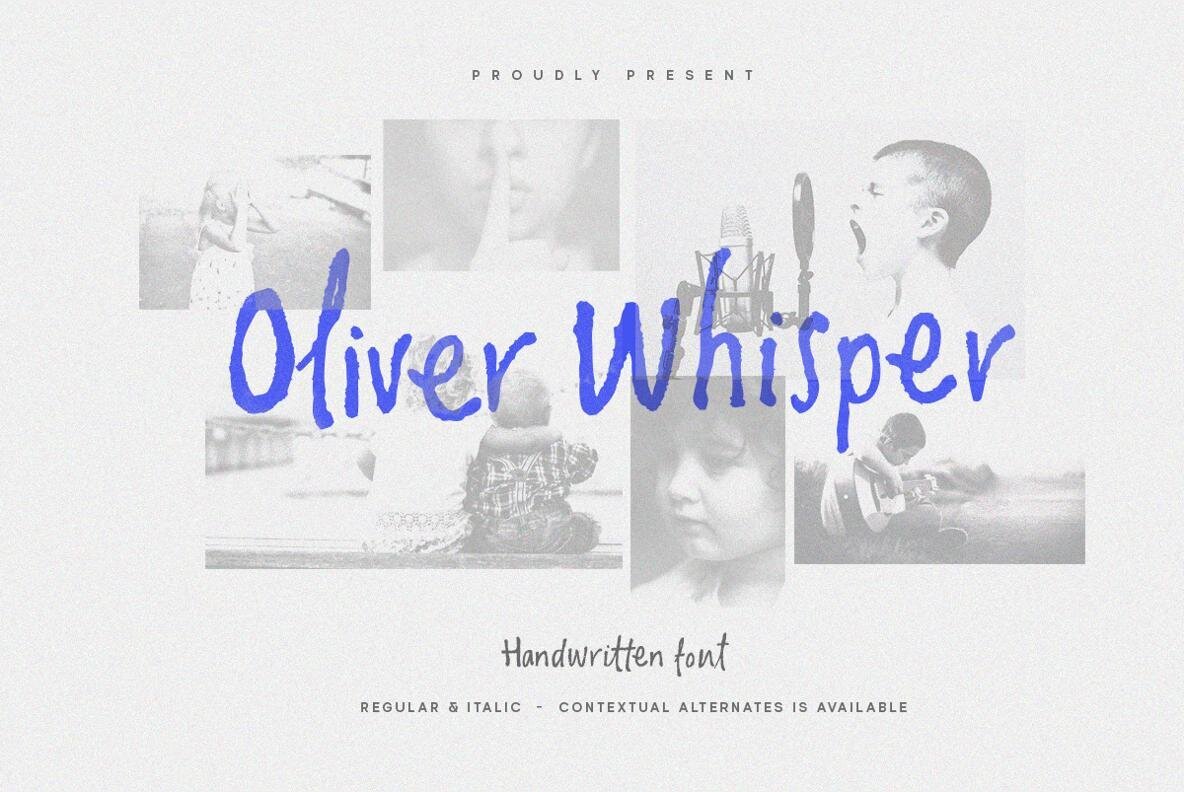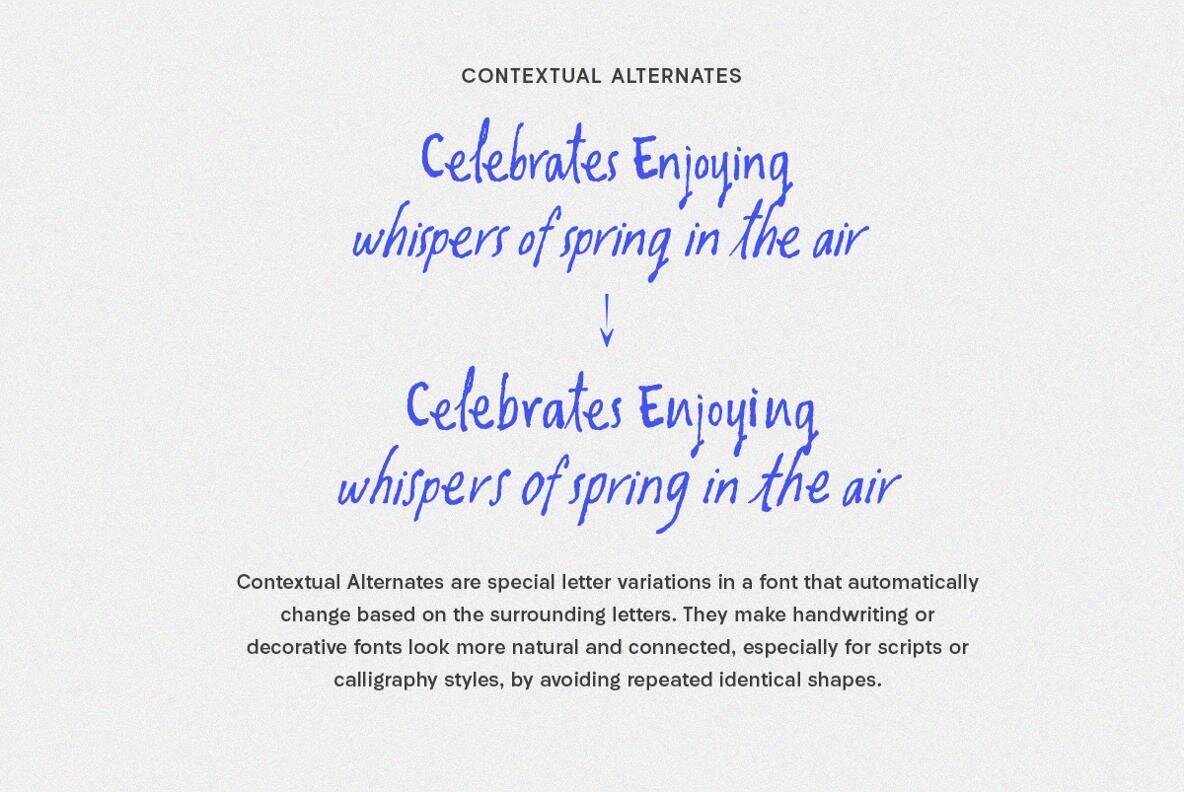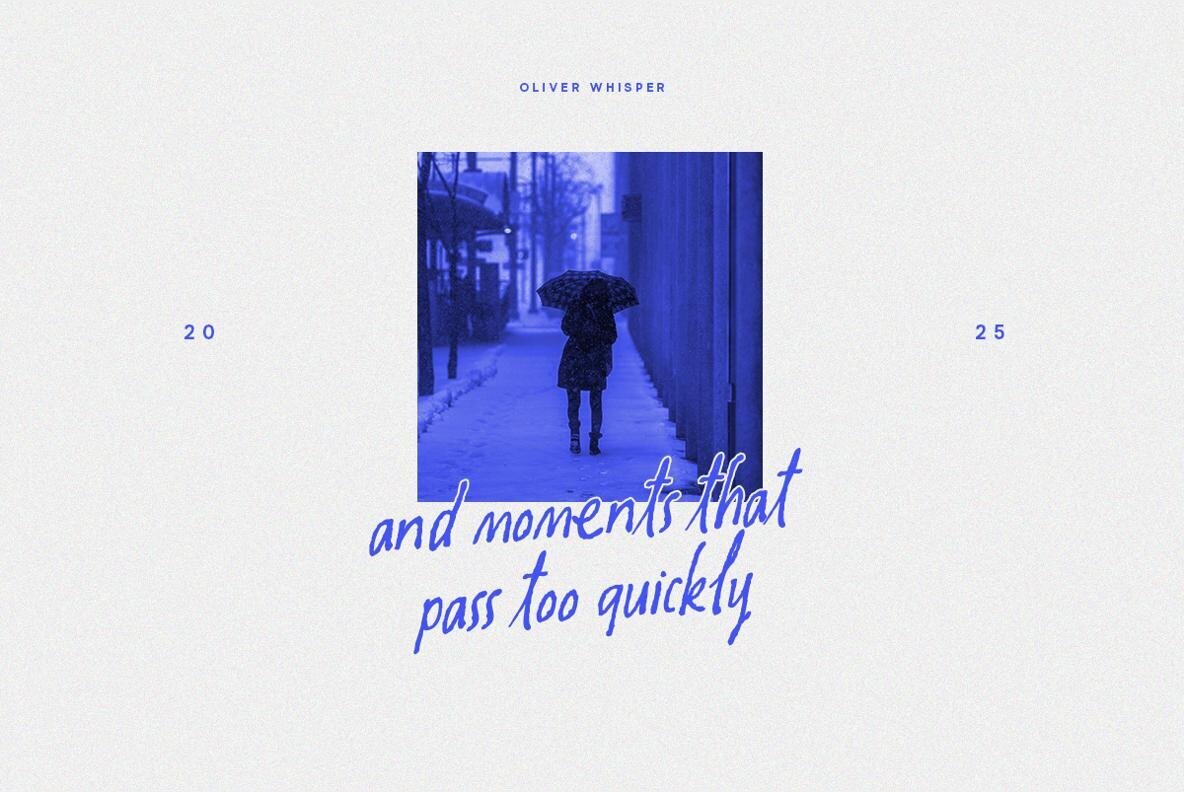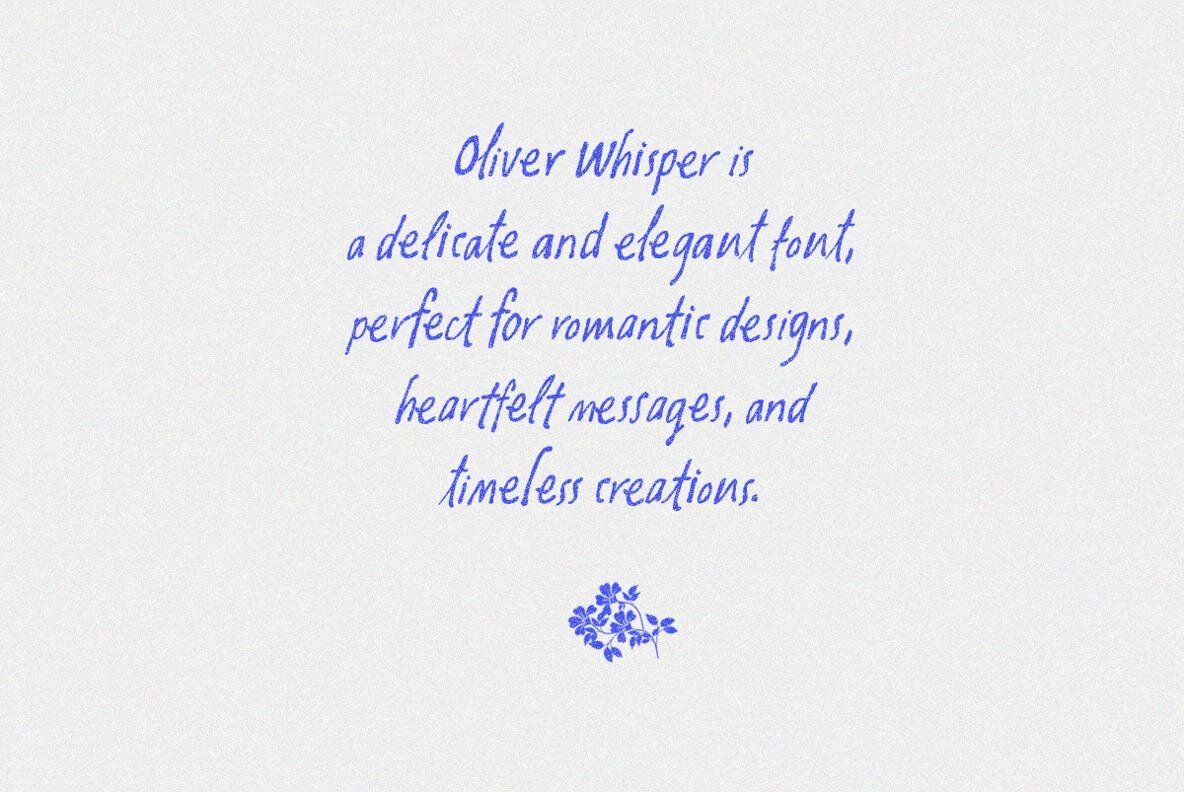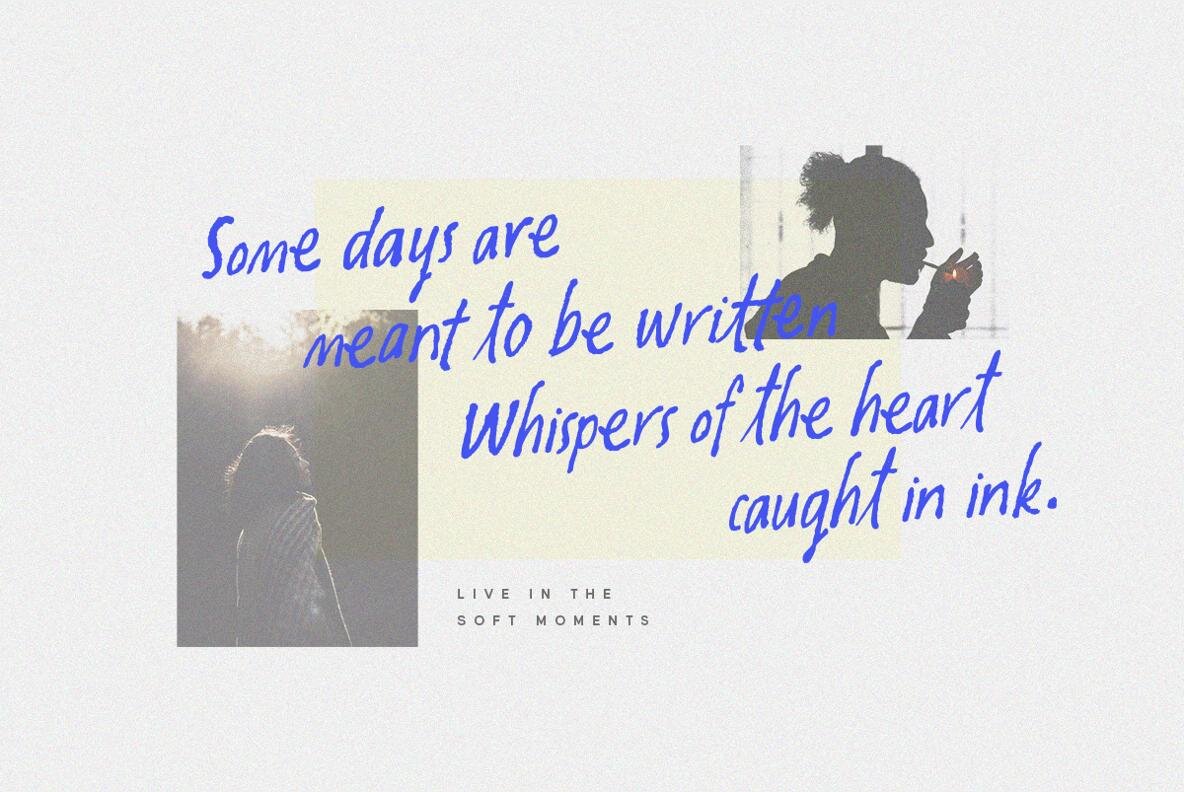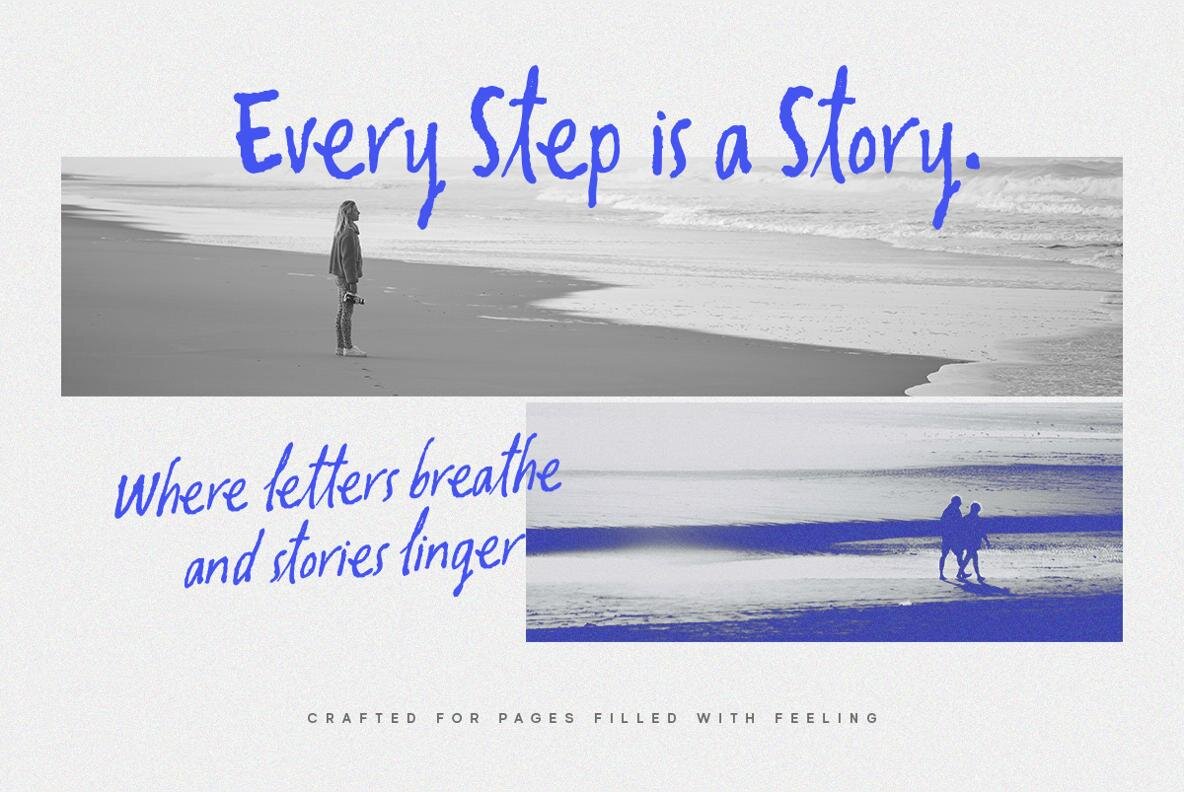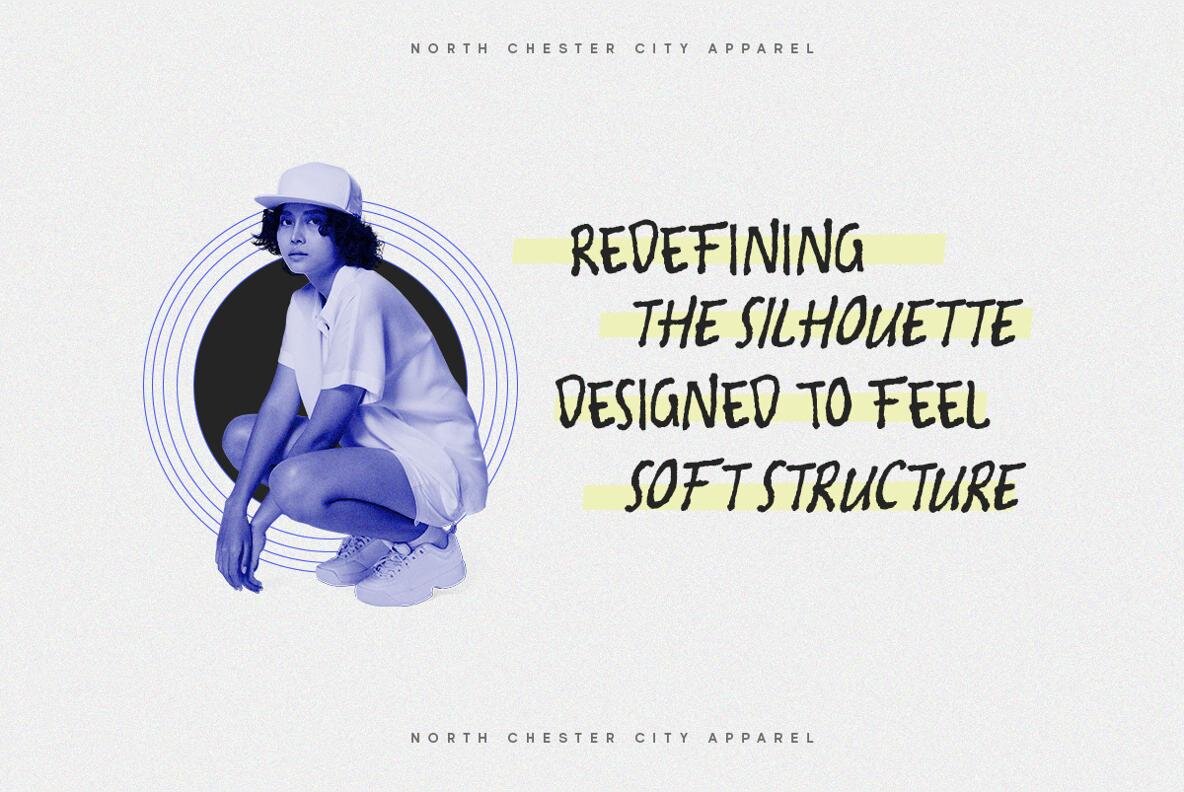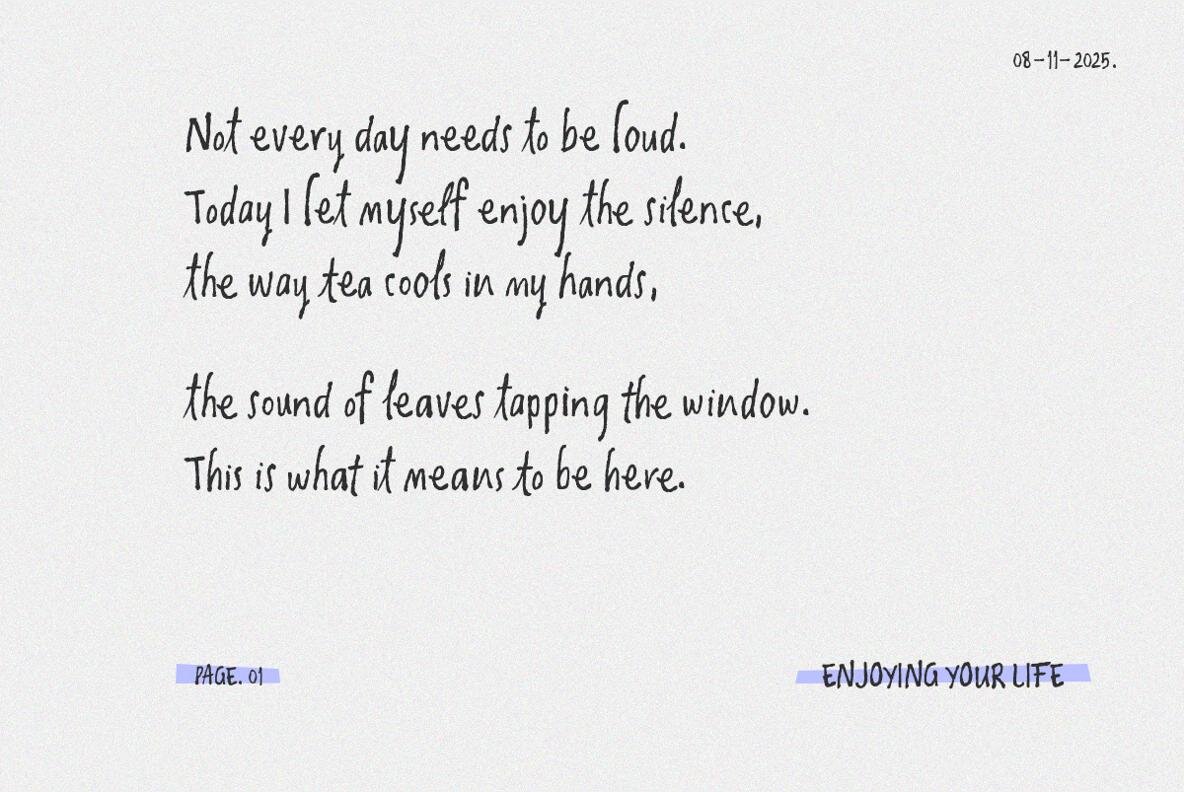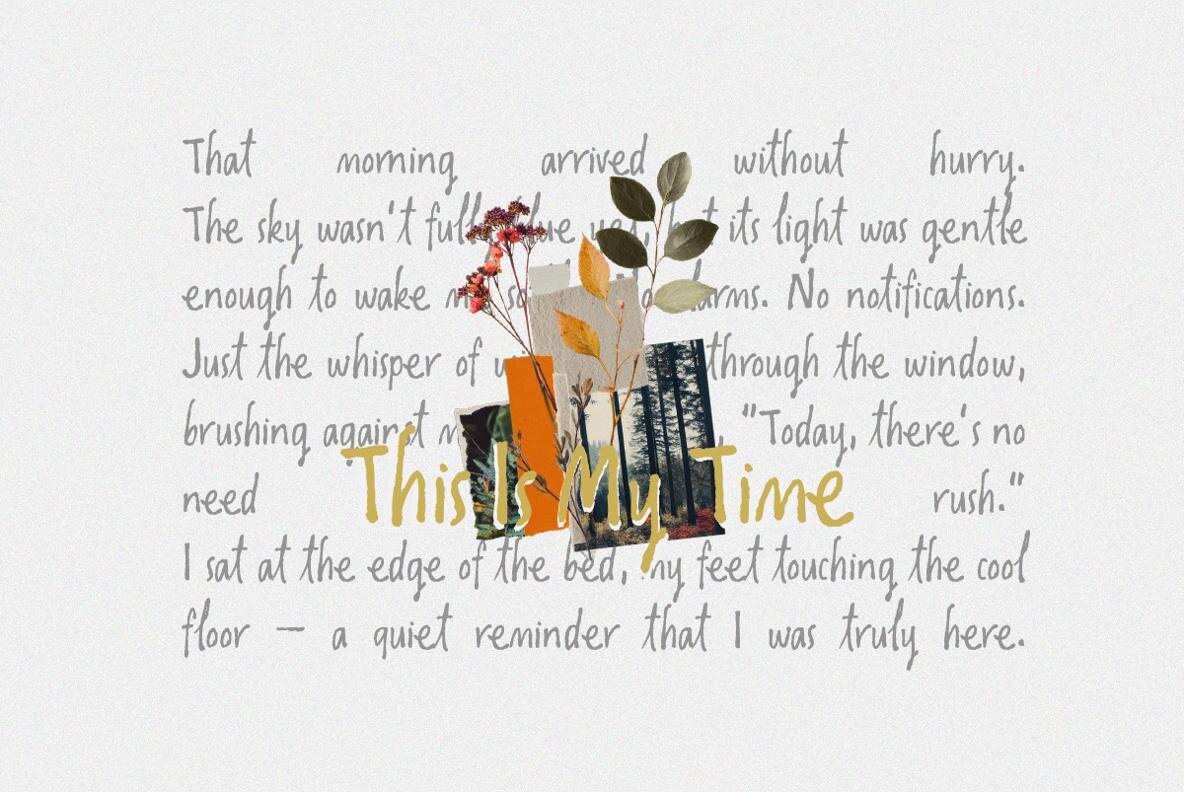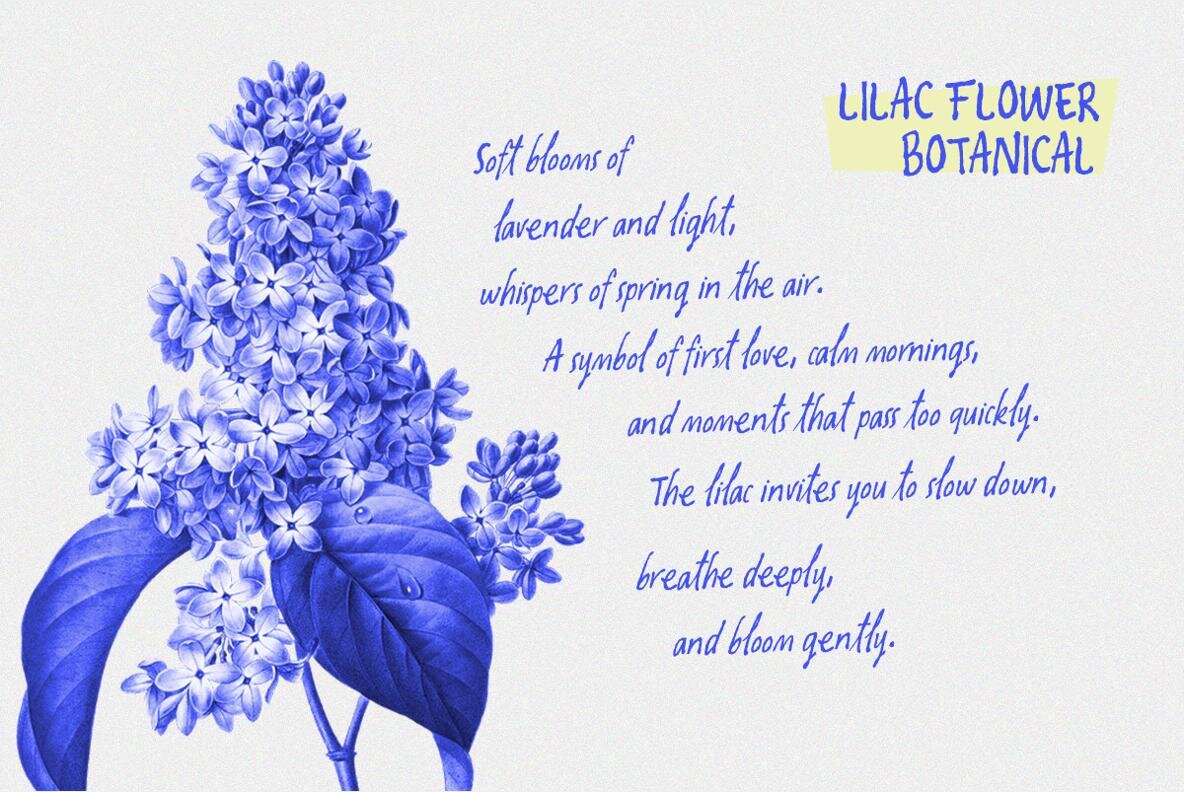
Oliver Whisper Font
Oliver Whisper stands as a homage to the beauty of imperfection, delivering a handwritten font that feels both raw and authentic. With strokes that echo the immediacy of a casual note, this font exudes a quiet confidence, making it ideal for logos, posters, and creative branding that requires a touch of personality. For optimal use, we recommend applications that support OpenType features and Glyphs panels, such as Adobe apps and Corel Draw, allowing you to explore all available glyph variations.Oliver Whisper: A Handwritten Font With Character